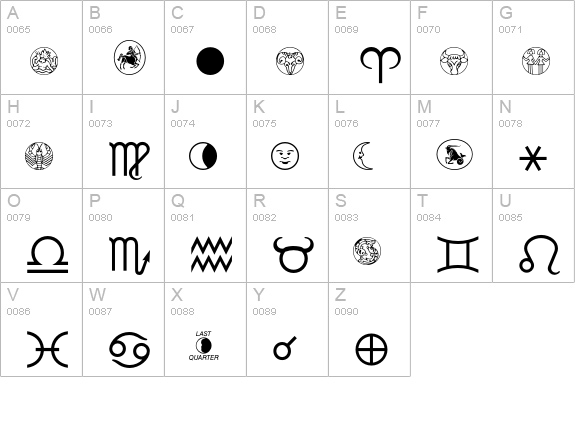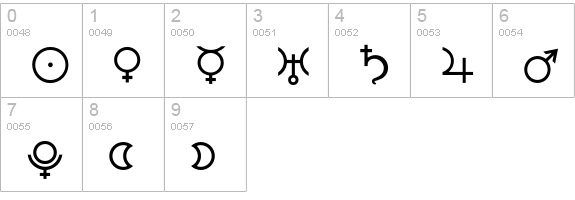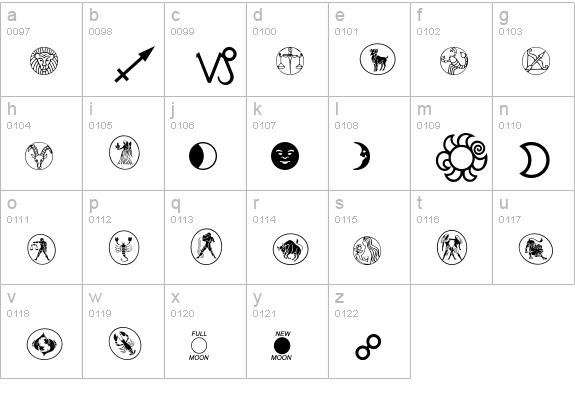
AstrologyP03 Font Details
AstrologyP03 font is a captivating and mystical typeface that perfectly captures the essence of the stars and planets. Its intricate design and cosmic-inspired letterforms make it ideal for projects related to astrology, horoscopes, and other celestial themes. The elegant curves and intricate details of this font are sure to add a touch of magic to any design. What makes AstrologyP03 font even more appealing is that it is freely available to download at FontsMarket.com. This means you can easily access this enchanting font to elevate your projects and bring a sense of cosmic wonder to your designs. Whether you are a professional designer or a hobbyist looking to add a celestial touch to your creations, AstrologyP03 font is the perfect choice for all your mystical design needs. Download it today and let the magic of the cosmos inspire your next project.